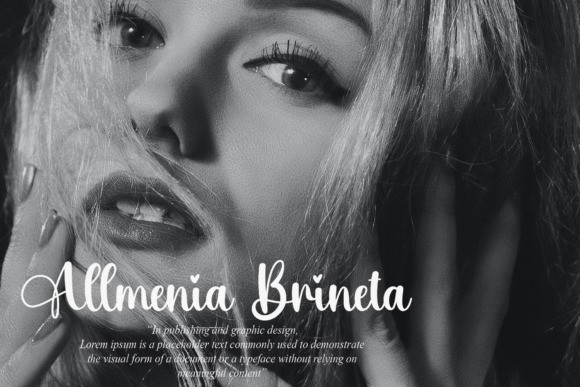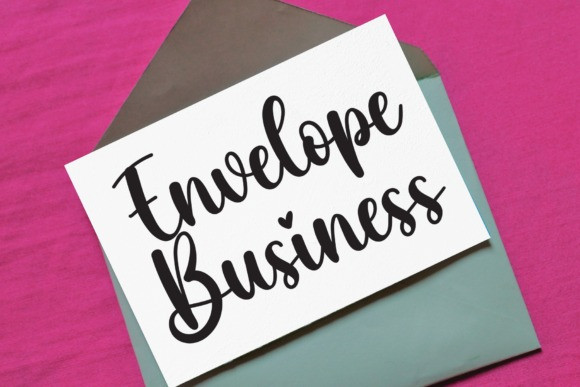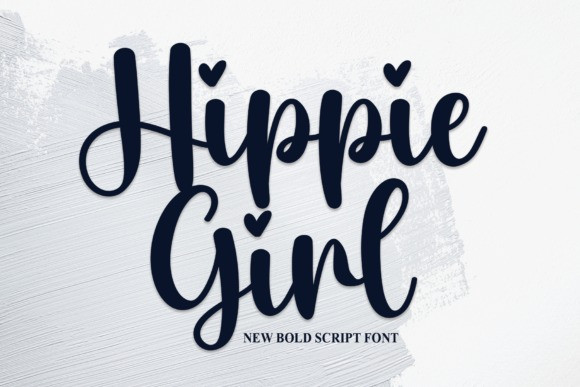
Hippie Girl Font
Hippie Girl Font is a stylish and dainty script font. It is suitable for any projects such as: logos, branding projects, label, photography, watermark, special events, and all your other lovely projects that need a beautiful script taste.